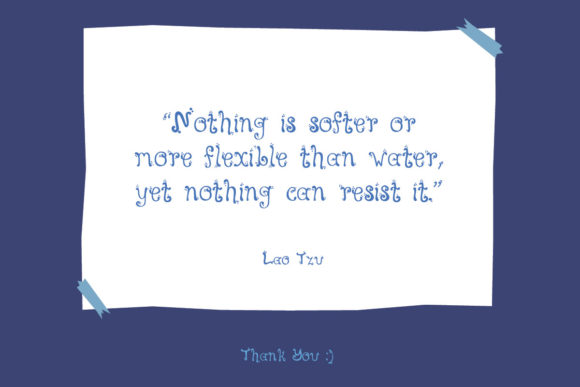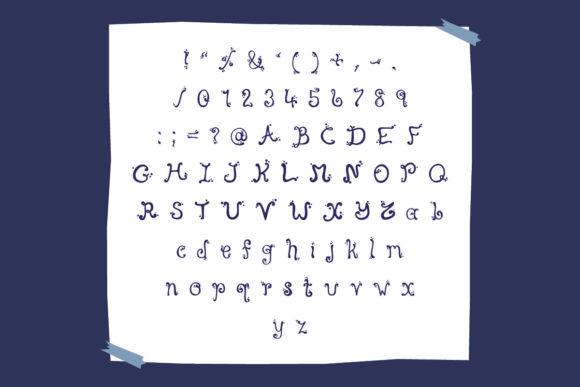
Water Doodle Font
db-ku.com - Script & Handwritten -- Water Doodle is a whimsical and fancy looking handwritten font. It is suitable for logos, brand identity, apparel industry, posters, music covers, movie titles, game, magazine covers and so much more.